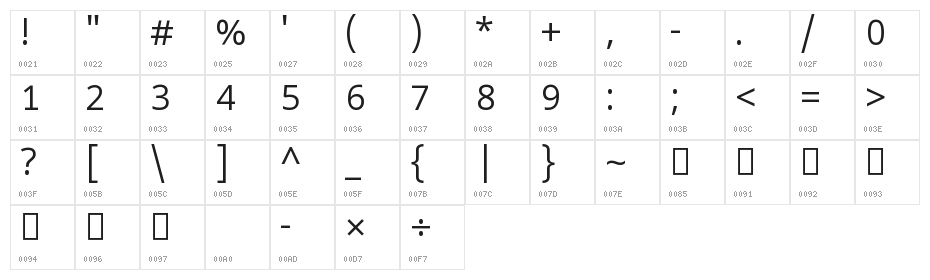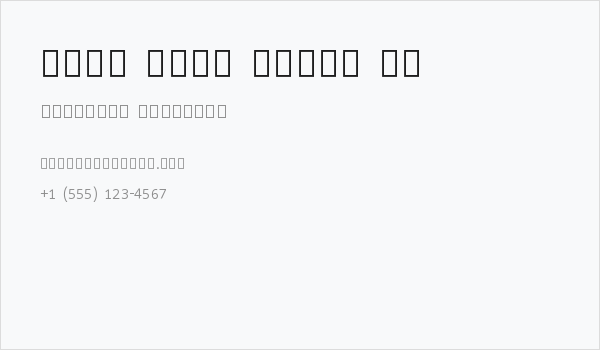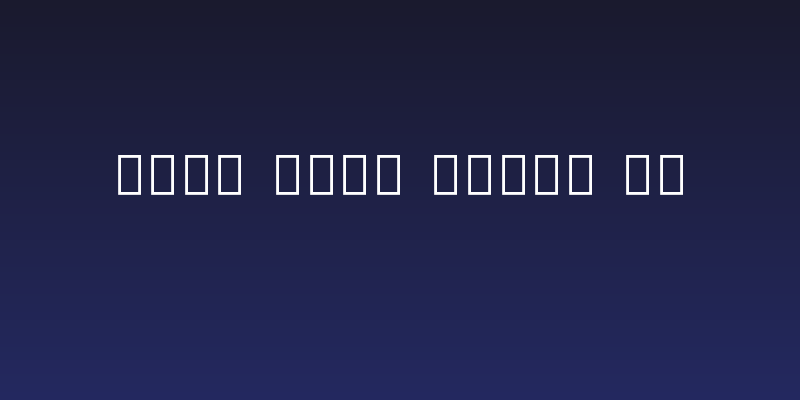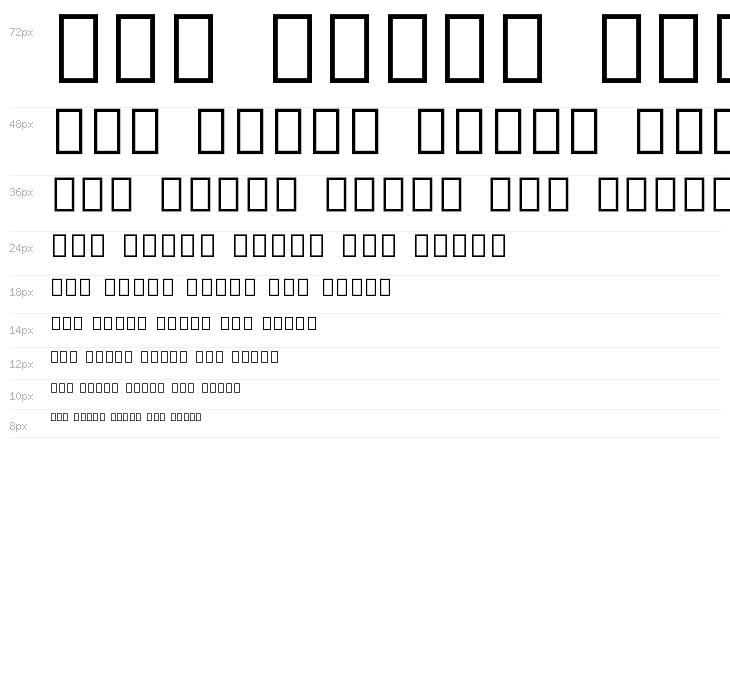
Noto Sans Oriya UI Font
Noto Sans Oriya UI Description
This font features a clean and modern design with a focus on readability and simplicity. The characters are well-proportioned, with a uniform stroke width that provides a balanced appearance. The numerals are clear and distinct, making them easy to read in various contexts. The special characters are designed to complement the overall style, maintaining consistency across the font. This font is versatile, suitable for both digital and print media, and works well in user interfaces due to its clarity and straightforward design.
| Use Case | Headlines, Body text, User Interfaces |
| Proposed Projects | Ideal for user interfaces, digital content, print media, and educational materials. |